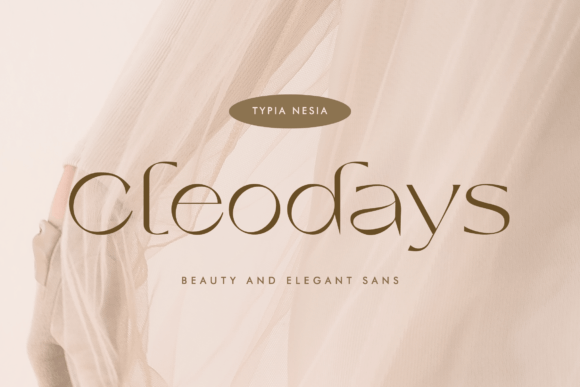
Immerse yourself in the elegance and allure of Cleodays, a captivating sans serif font family that radiates beauty and sophistication. Designed by the renowned Typia Nesia, Cleodays is an expanded sans serif that embodies the essence of femininity and expression.
With its graceful curves and delicate details, Cleodays captivates the eye and captivates the heart. Each letterform is a work of art, meticulously crafted to convey a sense of timeless beauty and modern elegance. Whether you're designing a luxury logo, creating a classy editorial layout, or crafting a stylish social media post, Cleodays will elevate your designs to new heights.
Go beyond the ordinary and embrace the extraordinary with Cleodays. Its versatility knows no bounds, making it the perfect choice for a wide range of projects. From stunning card making to eye-catching branding, alluring fashion promotions to captivating art quotes, Cleodays transforms your words into captivating visual expressions.
Indulge in the creative possibilities and let your imagination soar. Cleodays comes with alternates and ligatures, allowing you to combine characters and create unique and expressive typography. Its beauty lies in its ability to adapt to your creative vision, becoming an extension of your artistic expression.
With Cleodays, you possess the power to captivate audiences, leaving an unforgettable impression. Its timeless aesthetics and expressive nature will effortlessly enhance your designs, making them stand out from the crowd. Experience the magic of Cleodays today and embark on a creative journey that knows no limits.